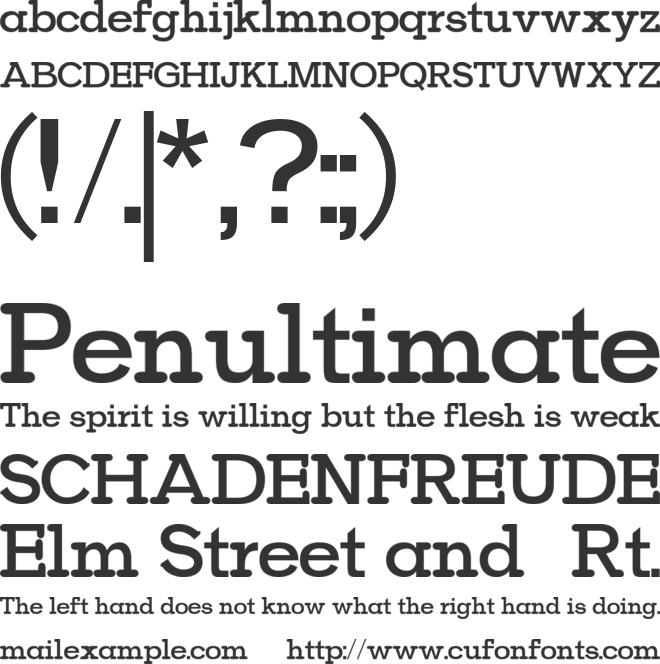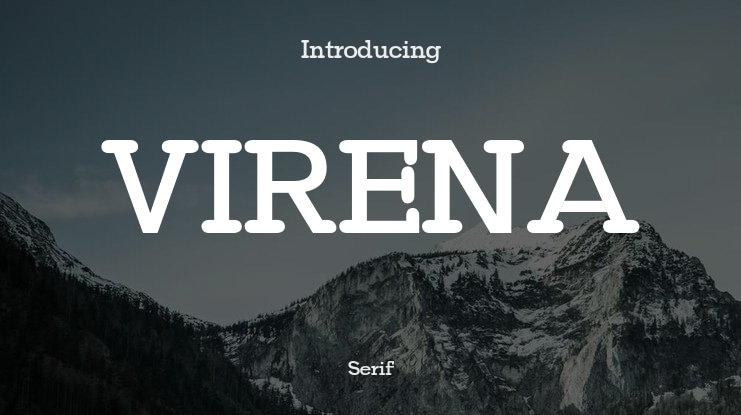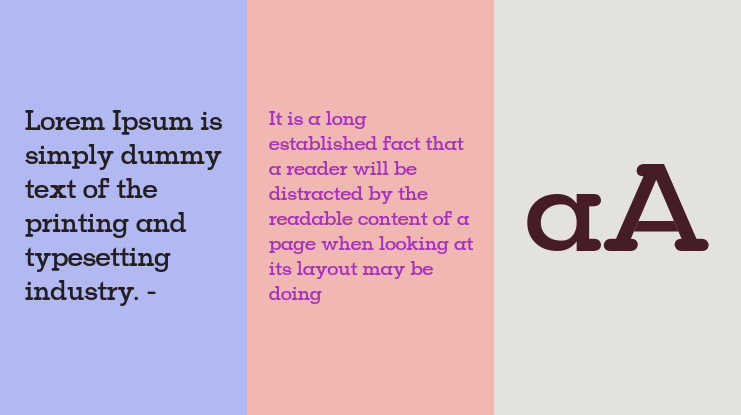
VIRENA Font
🎨 Font Name: VIRENA by Minimalist Art Studio
🎨 Font Description: VIRENA is a minimal, elegant slab serif font featuring Regular & Italic styles, Small Caps, and multilingual support—ideal for branding, editorial layouts, and luxury design projects.
✔ Complete Latin set + multilingual diacritics
✔ Alternates, stylistic sets & ligatures
✔ Numbers, small caps, and extended punctuation
✔ Bonus italics and family styles